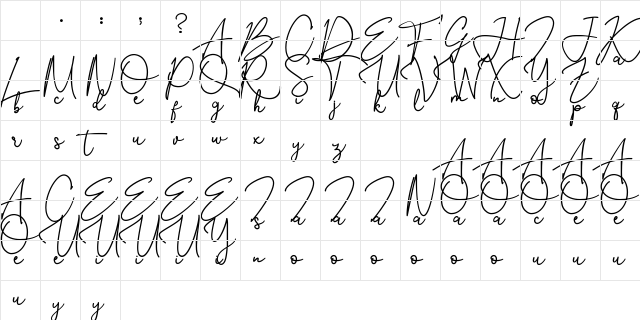
Complete Southern Jannie Regular glyph index. Displaying only characters natively supported by Southern Jannie Regular font.
Southern Jannie is a composed and adaptable typeface that performs quietly and consistently across a wide range of design contexts.